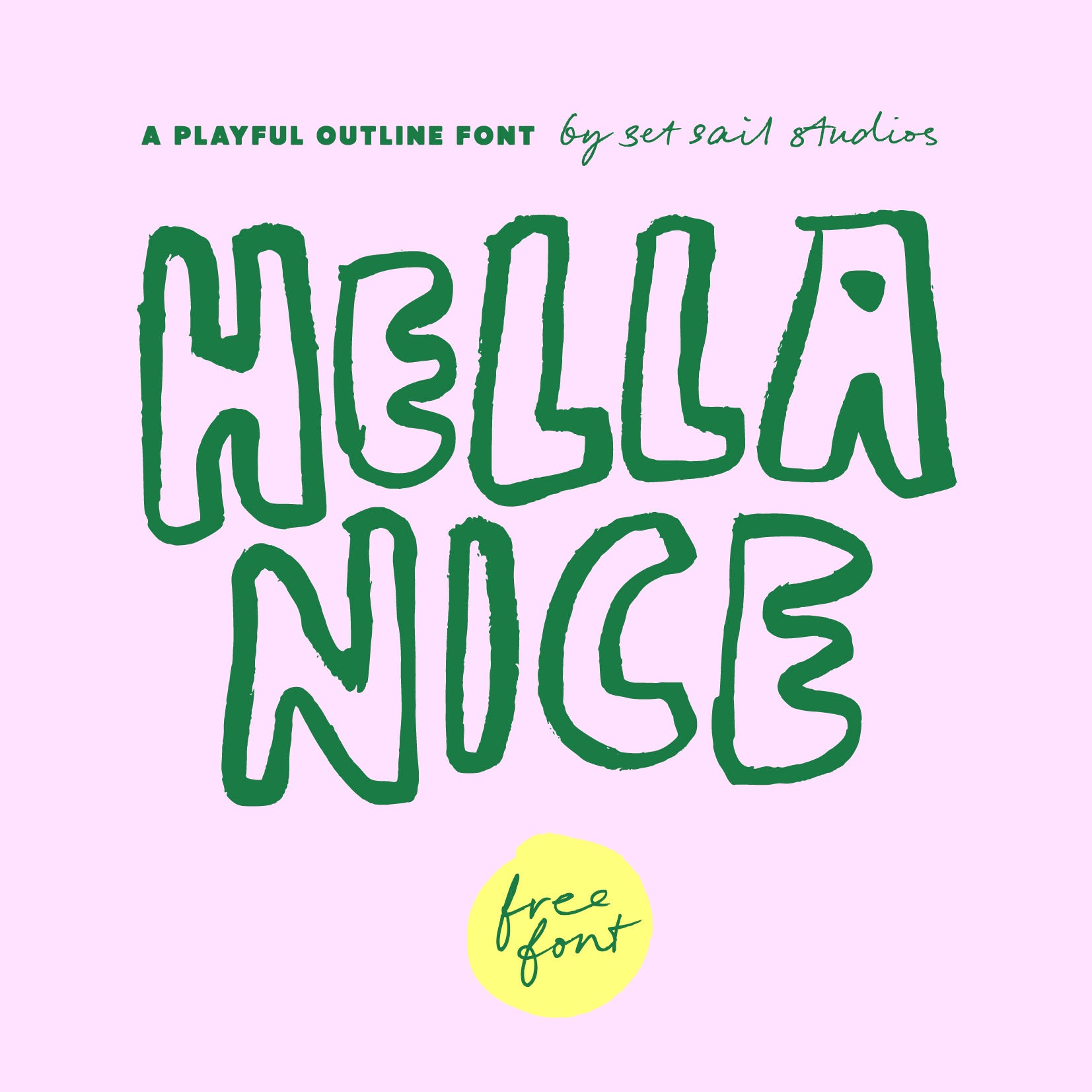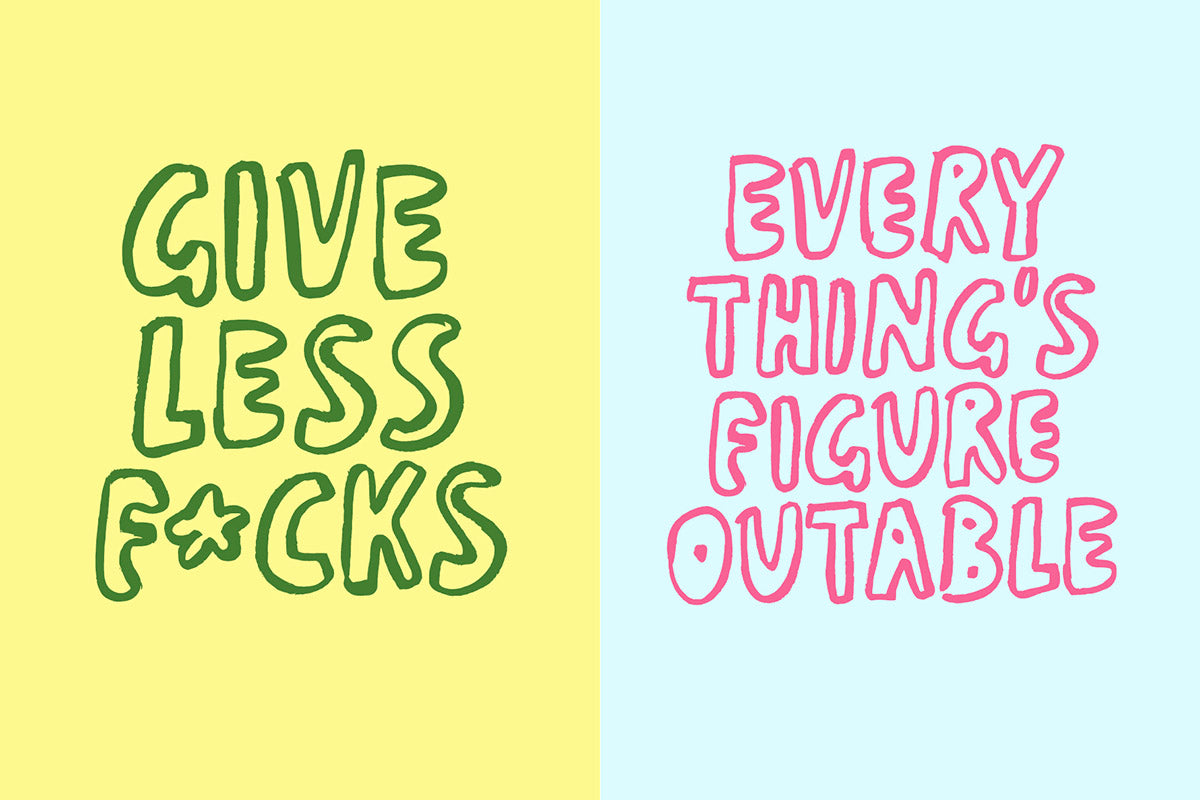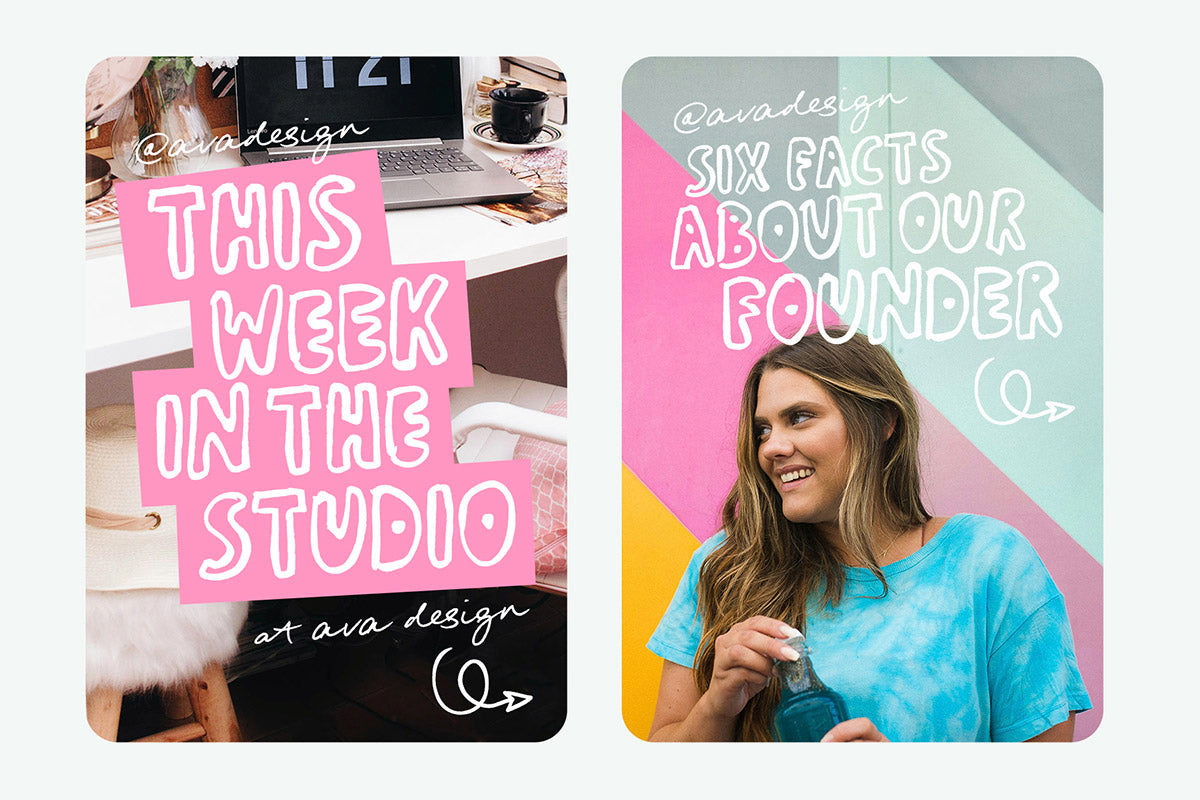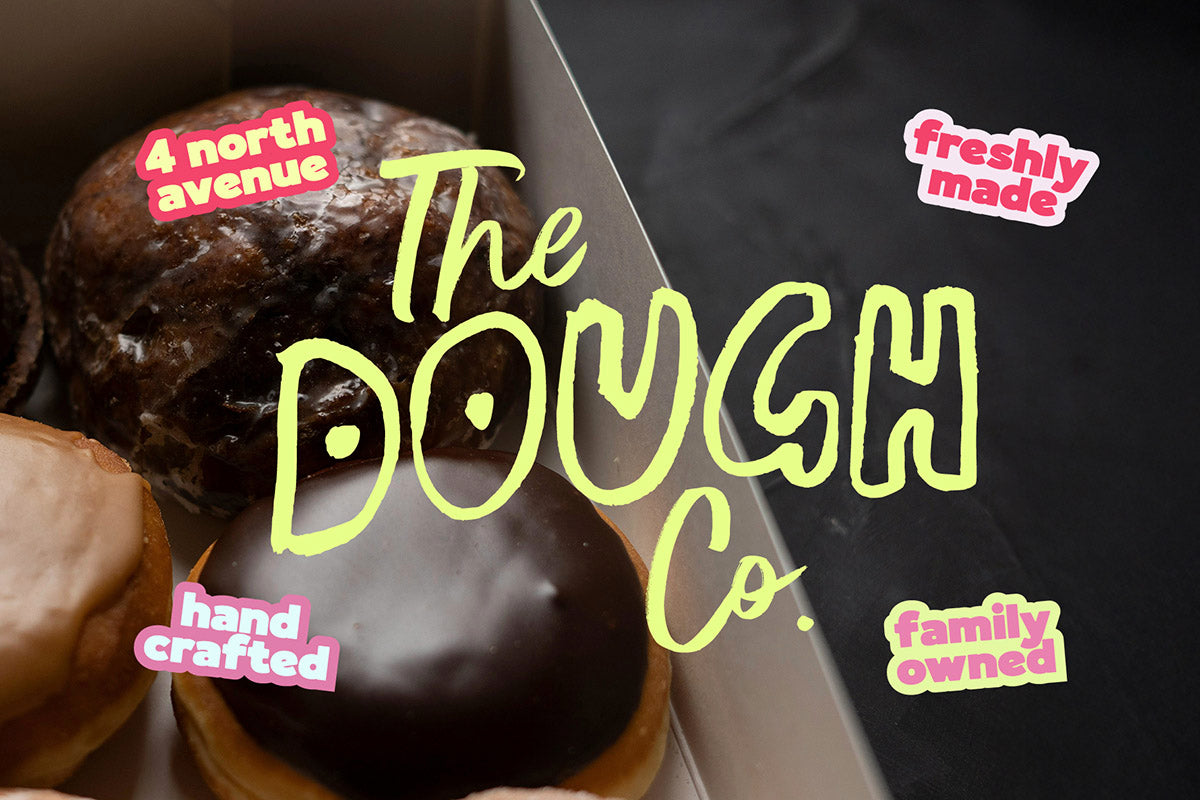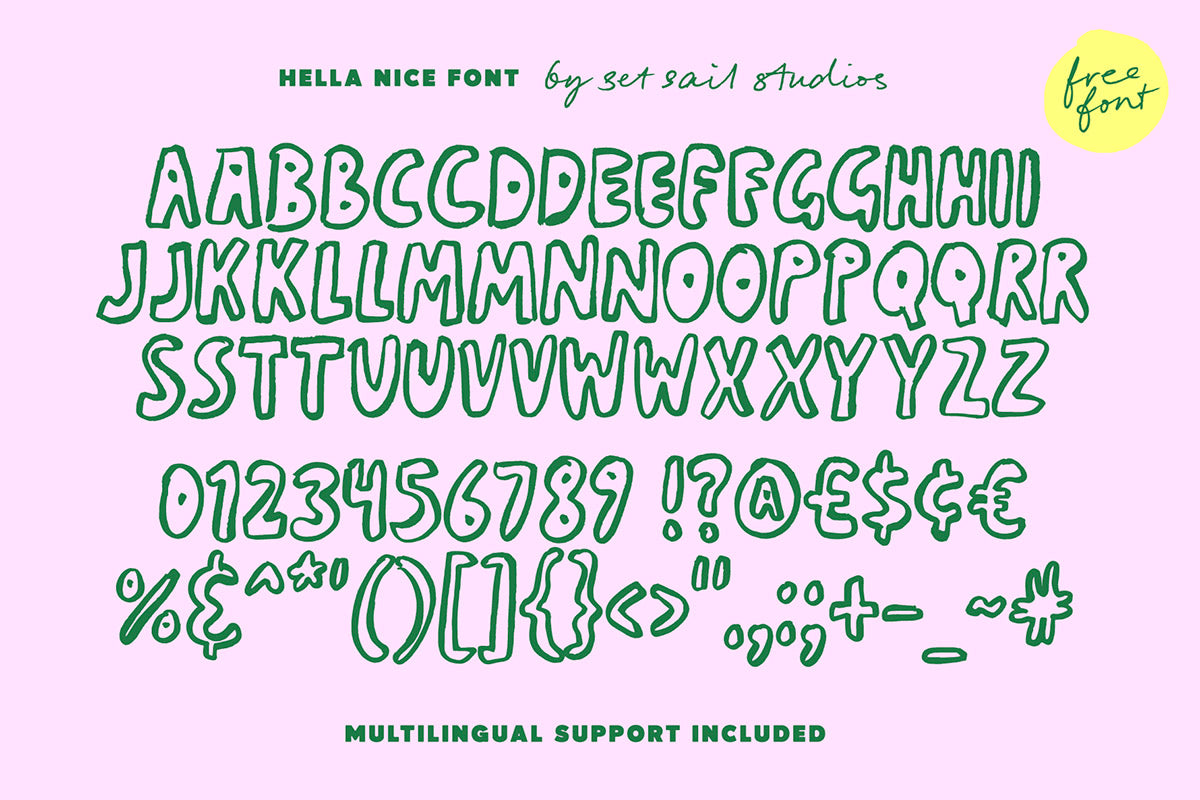
Hella Nice Font
Hella Nice is a bold and playful outline font, designed to be unmistakably human and real with it’s wild brush strokes, youthful energy and creative freedom. Painted by hand with real ink and paintbrush, this font includes 2 full sets of uppercase characters which you can easily switch between by turning caps lock on & off. It’s a great choice for any design in need of a fun hand-crafted aesthetic, including header text, social media posts, quotes, logos, and packaging designs.
Hella Nice is a hand-painted, bold outline font featuring brush stroke details, created with real ink and paintbrush. It includes two full sets of uppercase characters accessible via caps lock, and supports 23 languages including English, French, Spanish, German, and Dutch.